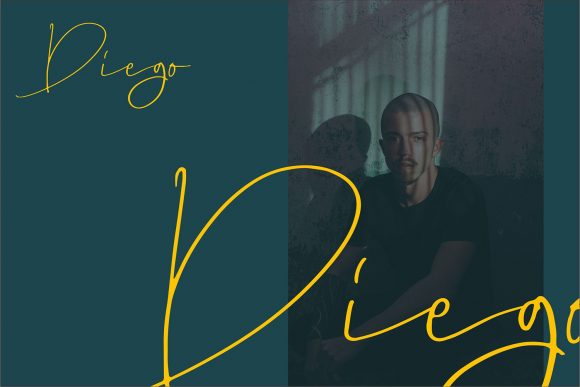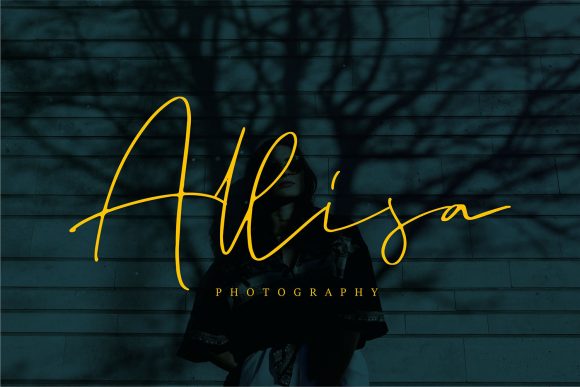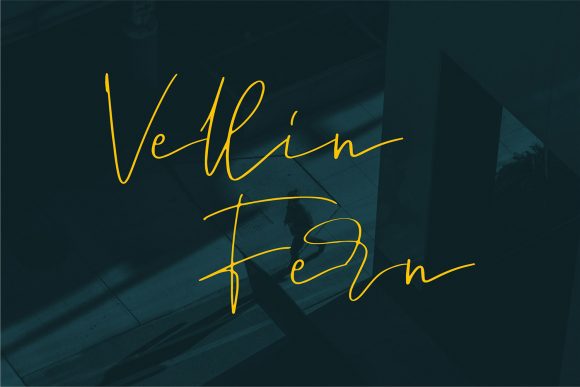
Introduction to Maissiel Font
Maissiel is an unique handwritten font.
Whether you’re using it for crafting, digital designing, presentations, or greeting card making, it’s perfect Fall in love with its incredibly versatile style and use it to create spectacular designs.
Key Features of Maissiel Font
Why Choose Maissiel Font?
Maissiel Font offers exceptional quality and versatility, making it a valuable addition to your design toolkit. Whether you’re creating for personal projects or commercial use, Maissiel Font delivers professional results.